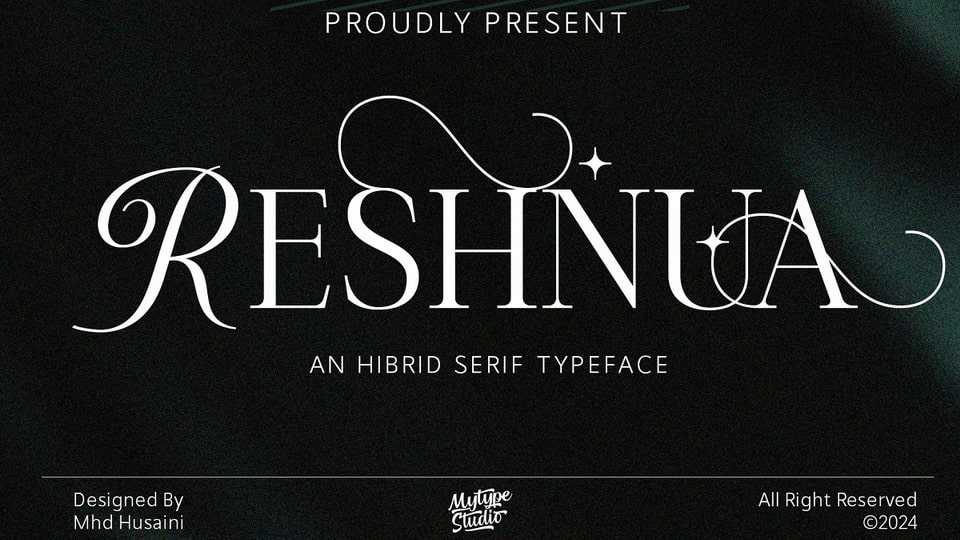
Download Reshnua font, an sophisticated serif typeface with a natural movement that makes it look elegant, classy and beauty for your project.
Designer: Mytype Studio